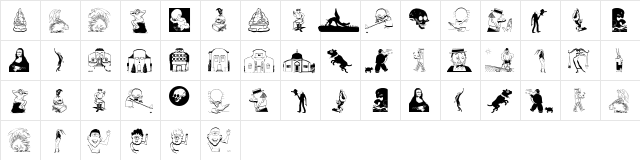
LaughOrNot Regular Font Preview
LaughOrNot Regular
Design Context for LaughOrNot Typeface
LaughOrNot is a composed and adaptable typeface that performs quietly and consistently across a wide range of design contexts.